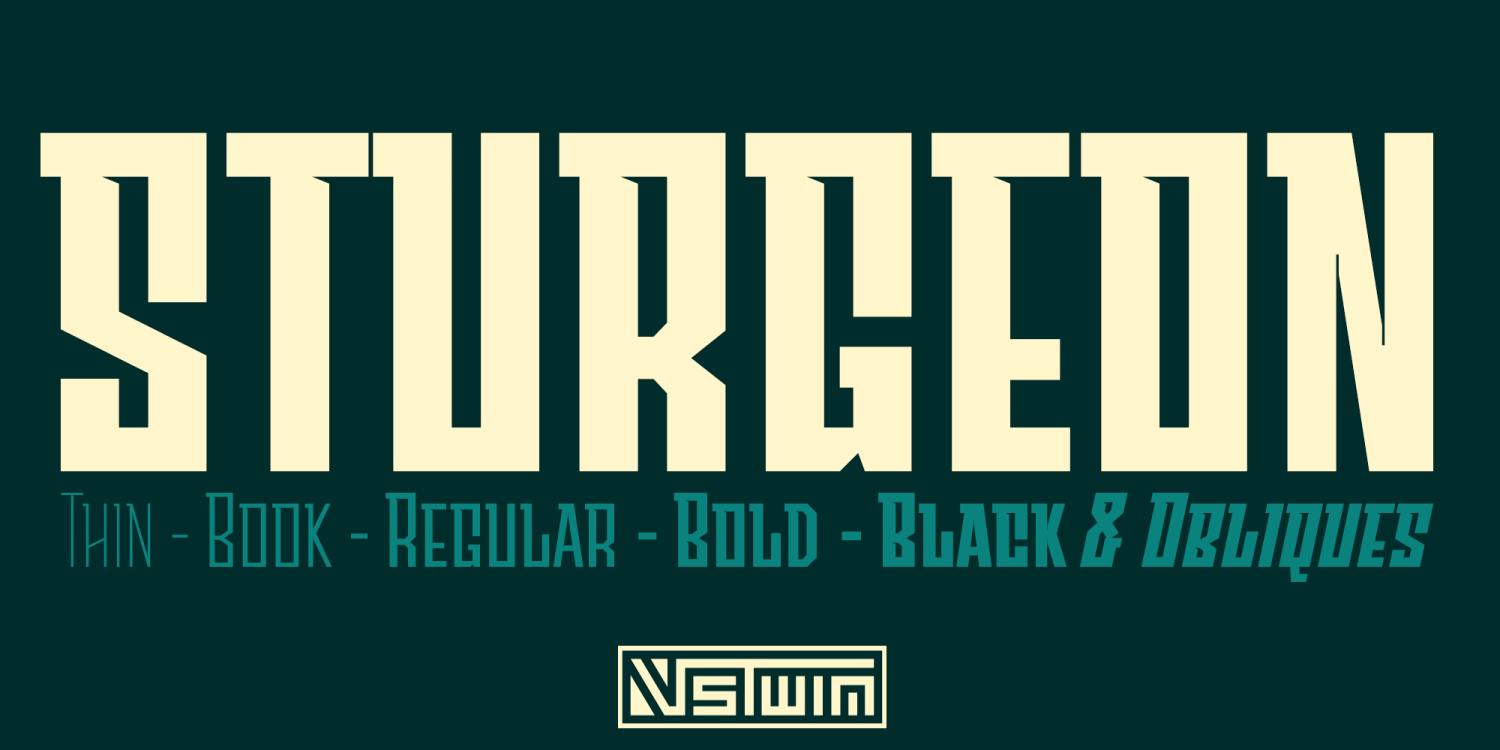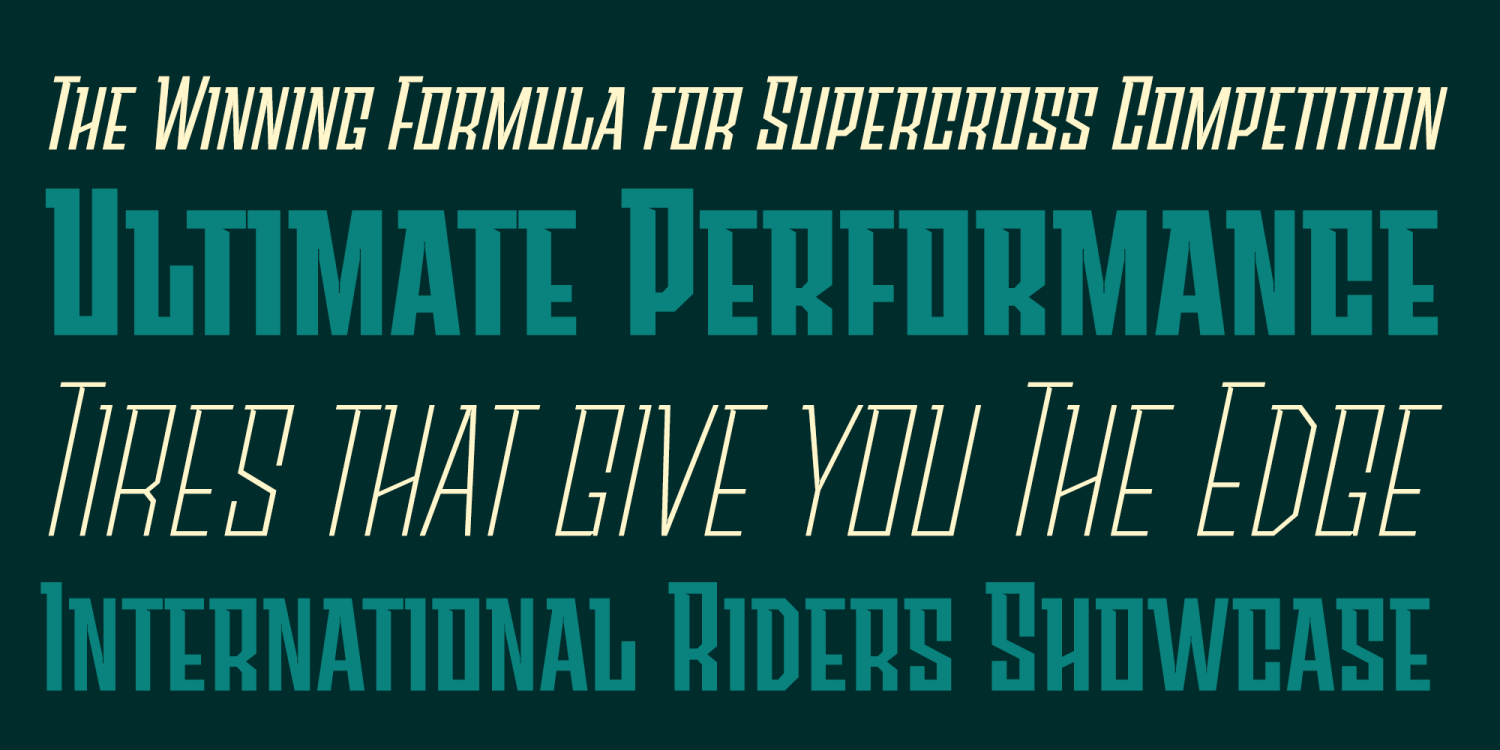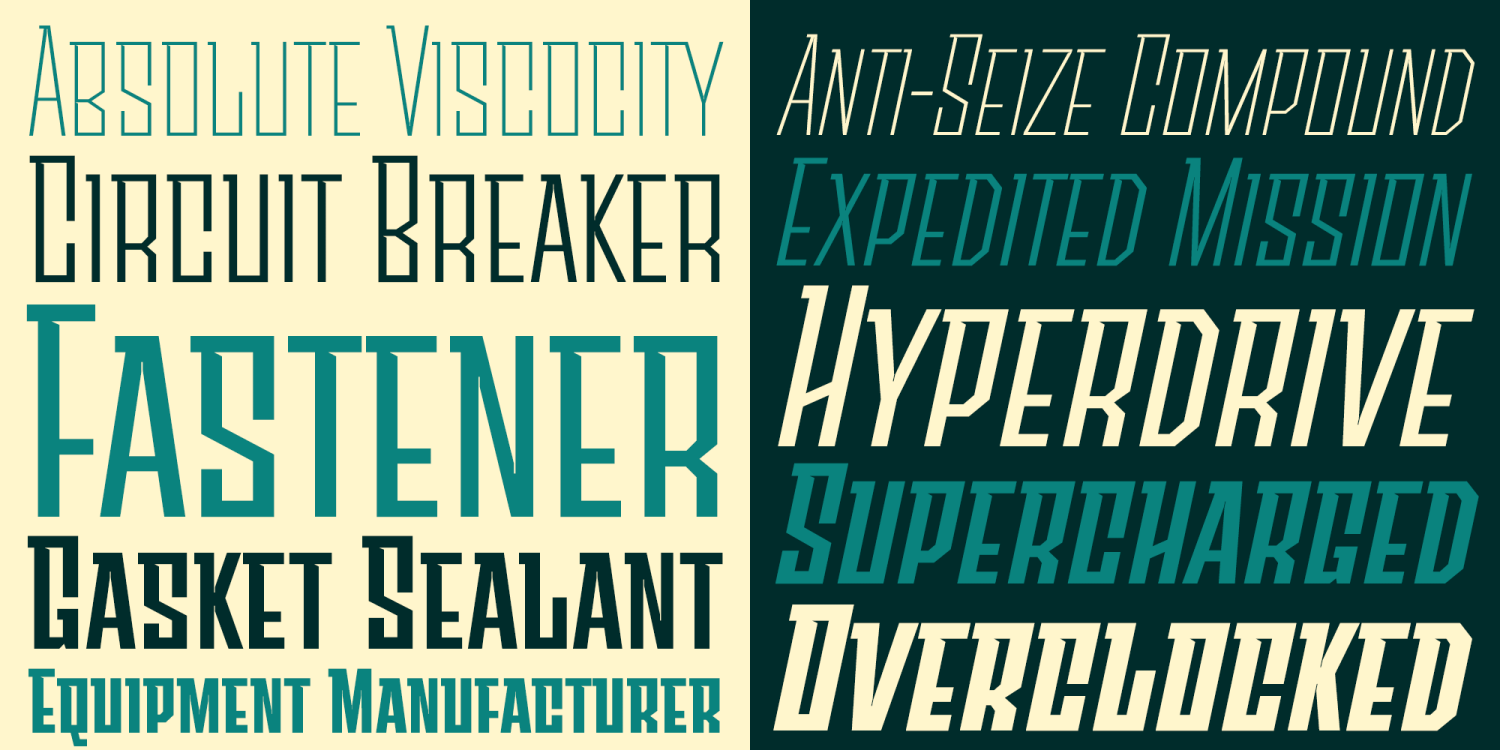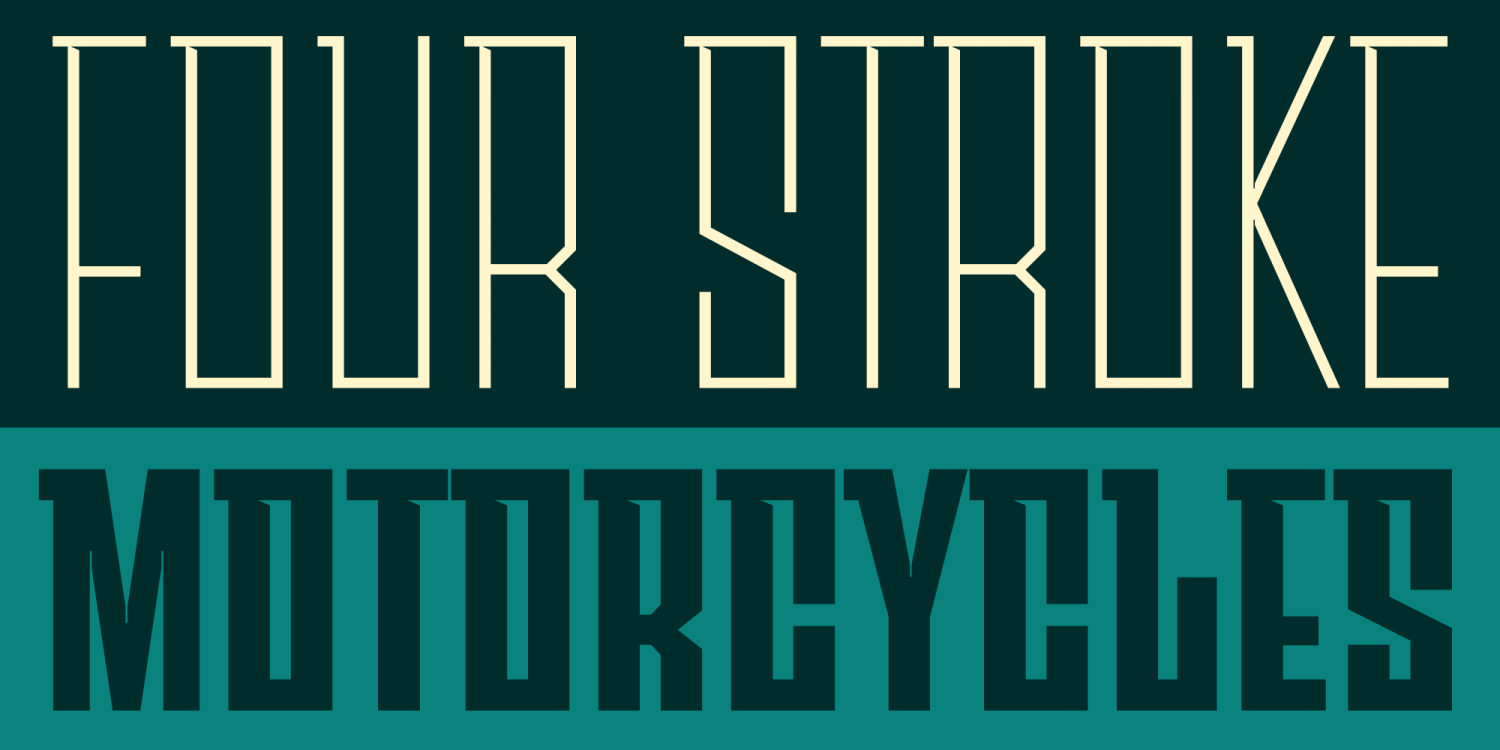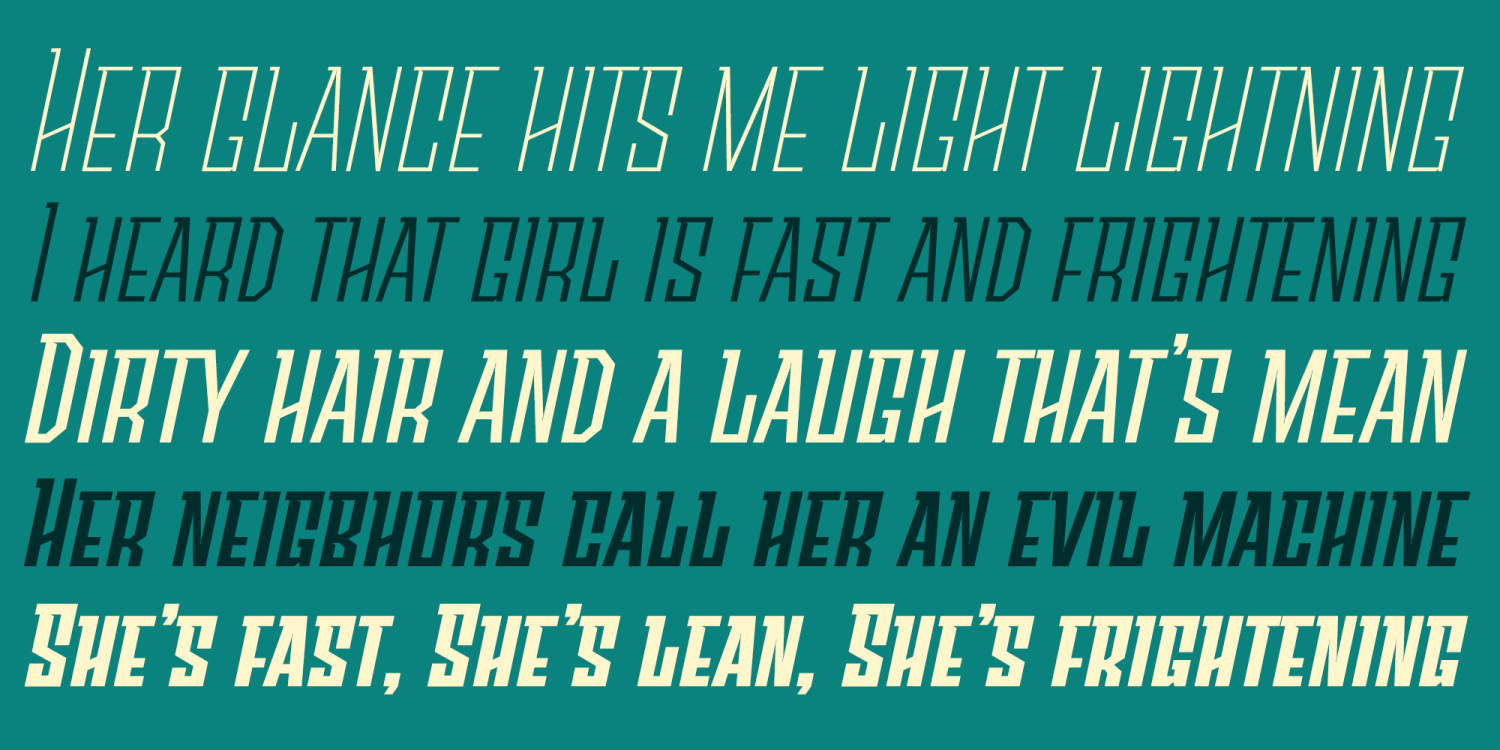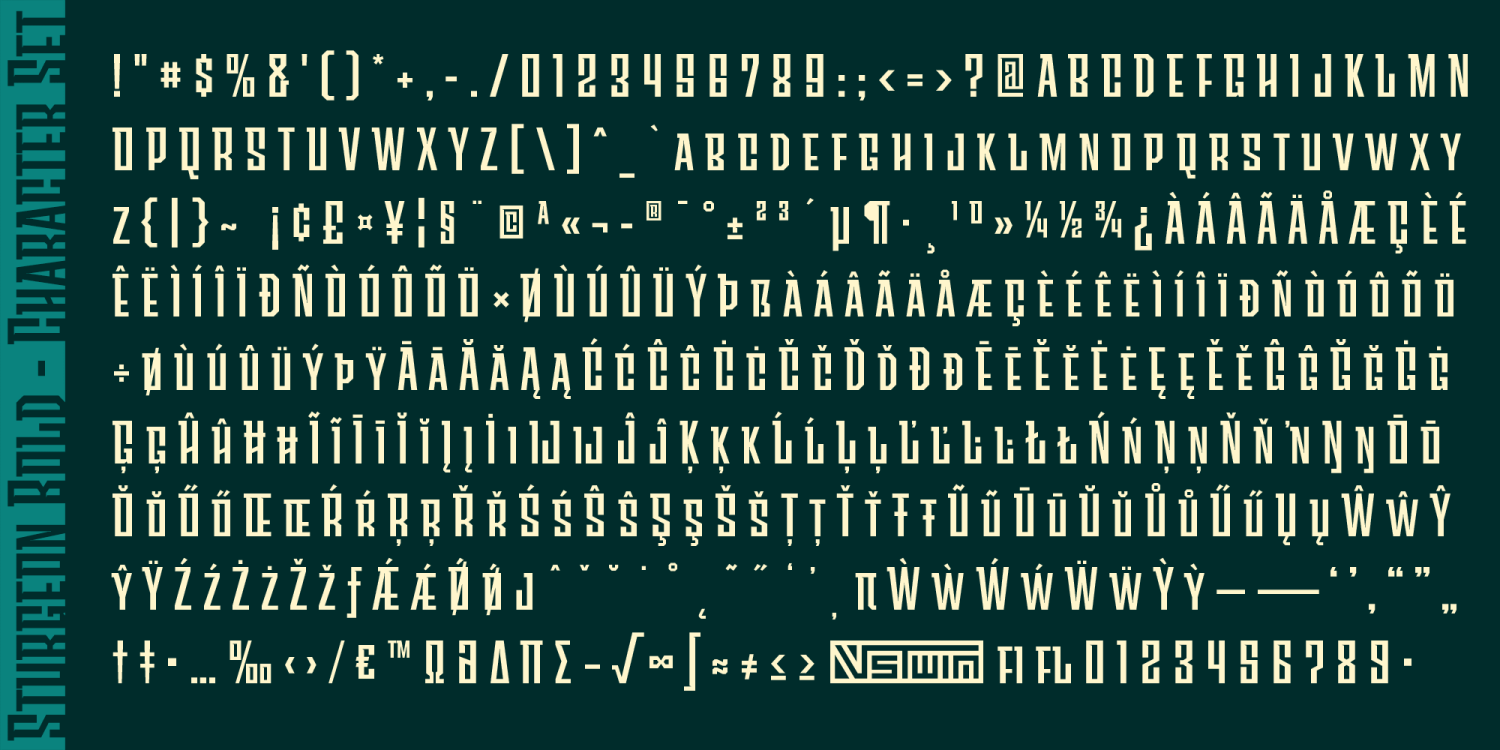
Sturgeon
Font Family by VersusTwin
Sturgeon is a sharp-edged techno display family built for modern headlines, branding, and high-energy visual design. Its letterforms combine industrial precision with a forward-looking geometric sensibility, creating a typeface that feels streamlined, controlled, and distinctly contemporary. The family spans a broad range of weights with matching obliques, allowing designers to move from lean, technical styling to bold, forceful display typography while maintaining a consistent visual voice. Sturgeon is well suited for posters, gaming graphics, sci-fi visuals, motorsport branding, electronic music promotion, packaging, editorial titling, and identity work that calls for a clean futuristic edge with strong graphic impact.